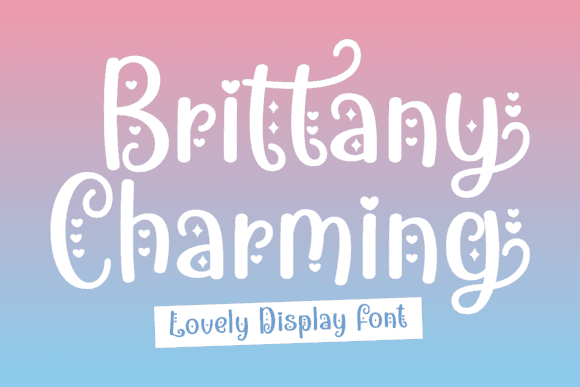
Brittany Charming Font for Cricut, Silhouette and Printable Designs
The Brittany Charming font is a handwritten script typeface featuring flowing letterforms and feminine curves, ideal for high-impact visuals across both digital and physical designs. Optimized for compatibility with cutting machines, this font ensures clean cuts and graceful strokes in every application.
Engineered to support smooth crafting workflows, Brittany Charming reinforces the font entity by serving designers, crafters, and small businesses seeking elevated lettering for logos, decor, and packaging.
- Elegant script with strong readability
- Perfect for cutting machines and print work
- Versatile across branding, decor, and crafts
- Supports modern and romantic design styles
Q: What type of font is Brittany Charming?
A: Brittany Charming is a script font featuring elegant, flowing handwriting style. It's ideal for decorative and branding projects.